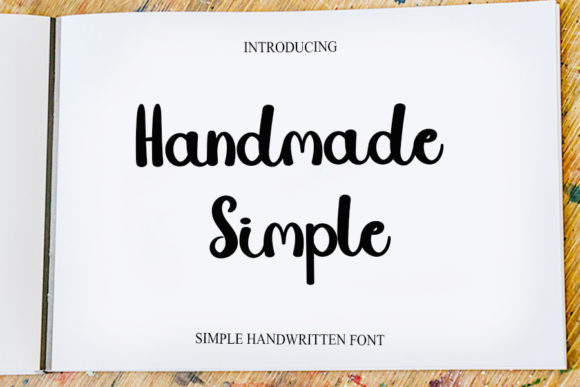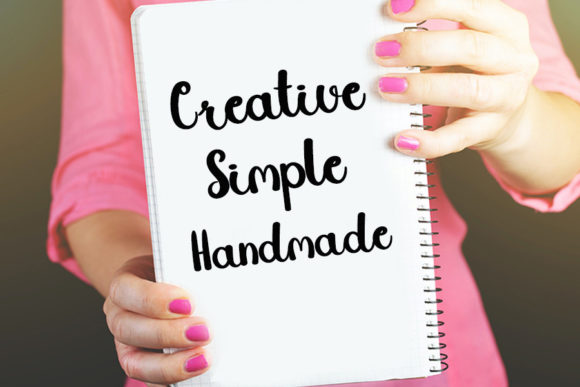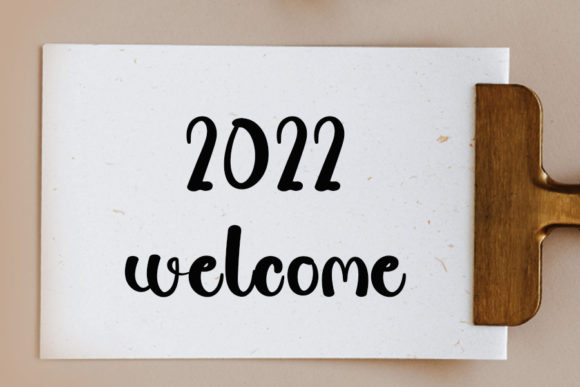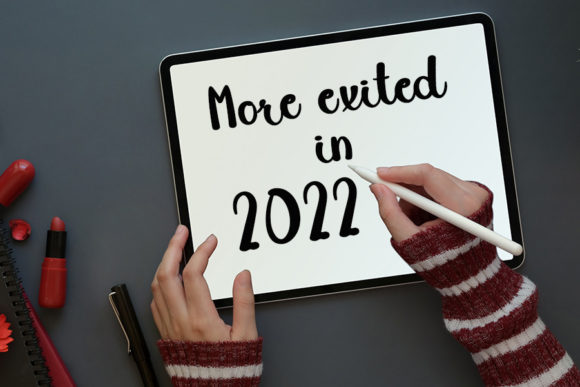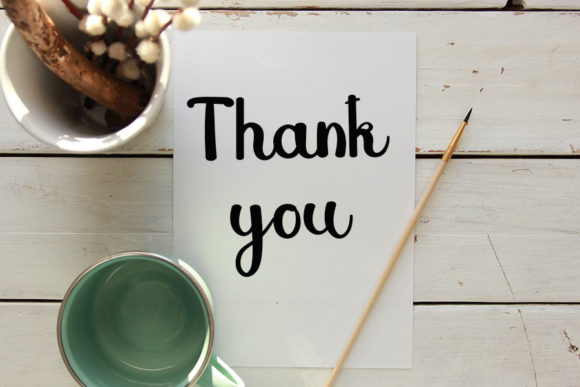
About Handmade Simple Font
Handmade Simple is a casual handwritten font, carefully designed to become a true favorite. It maintains its classy calligraphic influences while feeling contemporary and fresh. Fall in love with it, and let it bring your projects to the highest levels!